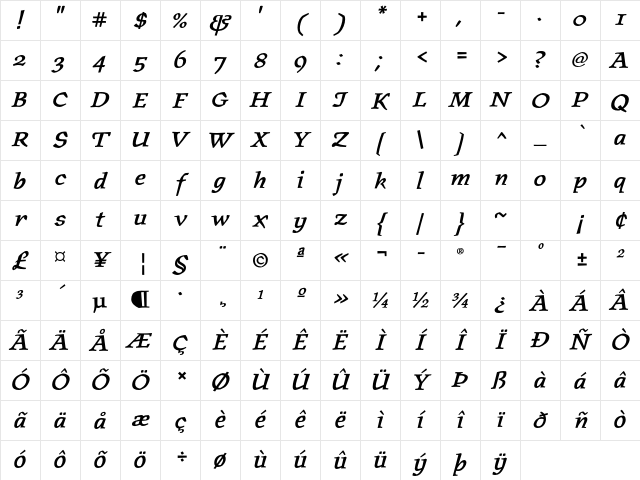
Oldrichium ITC Std Demi Italic
Style: Demi Italic
Designer: George Thompson
Design Context for Oldrichium ITC Std
Oldrichium ITC Std is a composed and adaptable typeface that performs quietly and consistently across a wide range of design contexts. The slanted form adds forward momentum and visual energy.
Pro Tip: Use Oldrichium ITC Std for emphasis, pull quotes, and subheadings where its slanted energy can add rhythm to the layout.